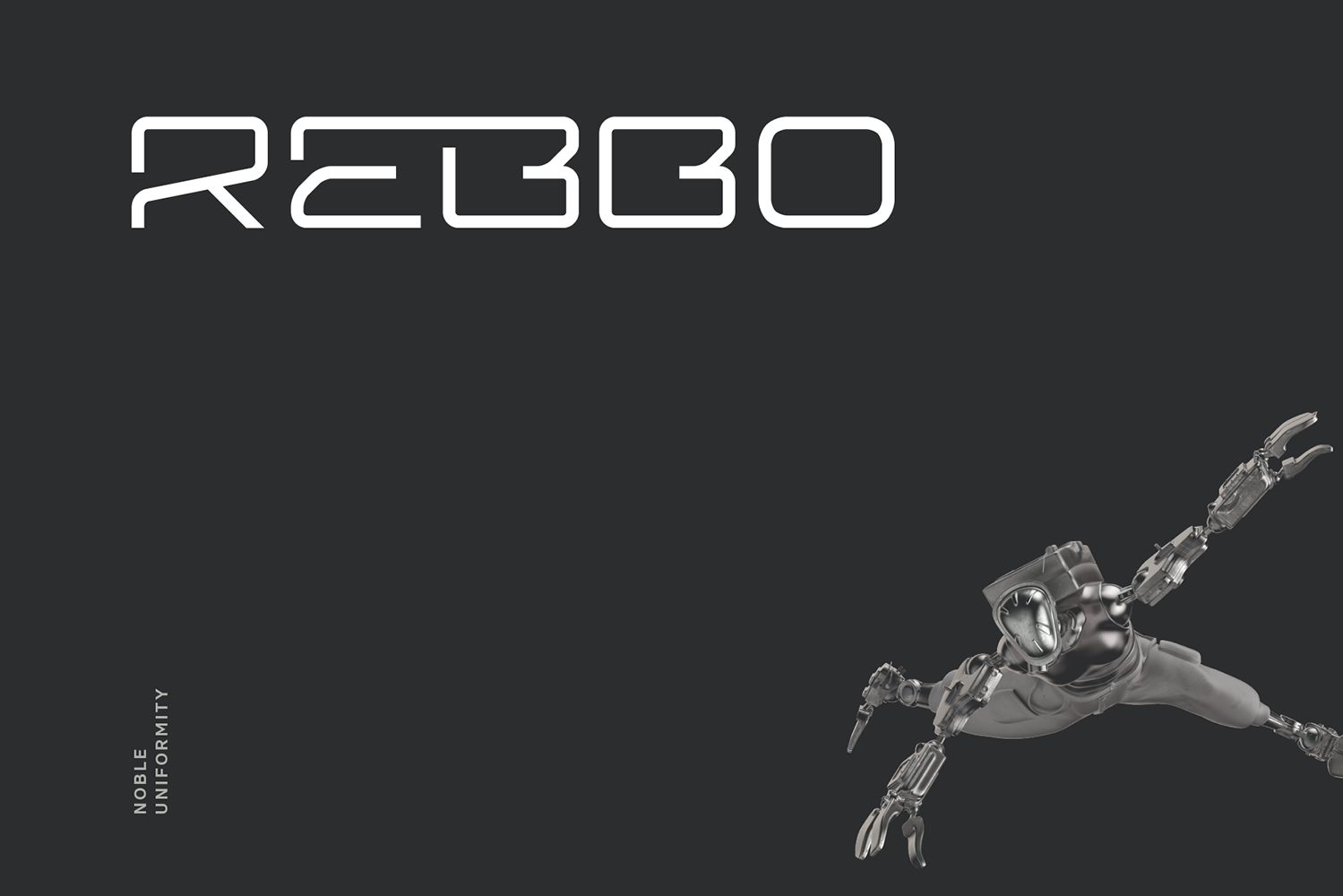
Rebbo Futuristic Tech Font
Rebbo is a noble uniformity, delicate display font apt for conceptual prototype, product design, album cover, hud typography and user interface applications.
- All caps with alternative
- Numbers and punctuations
- Toggle caps lock for alternative glyphs